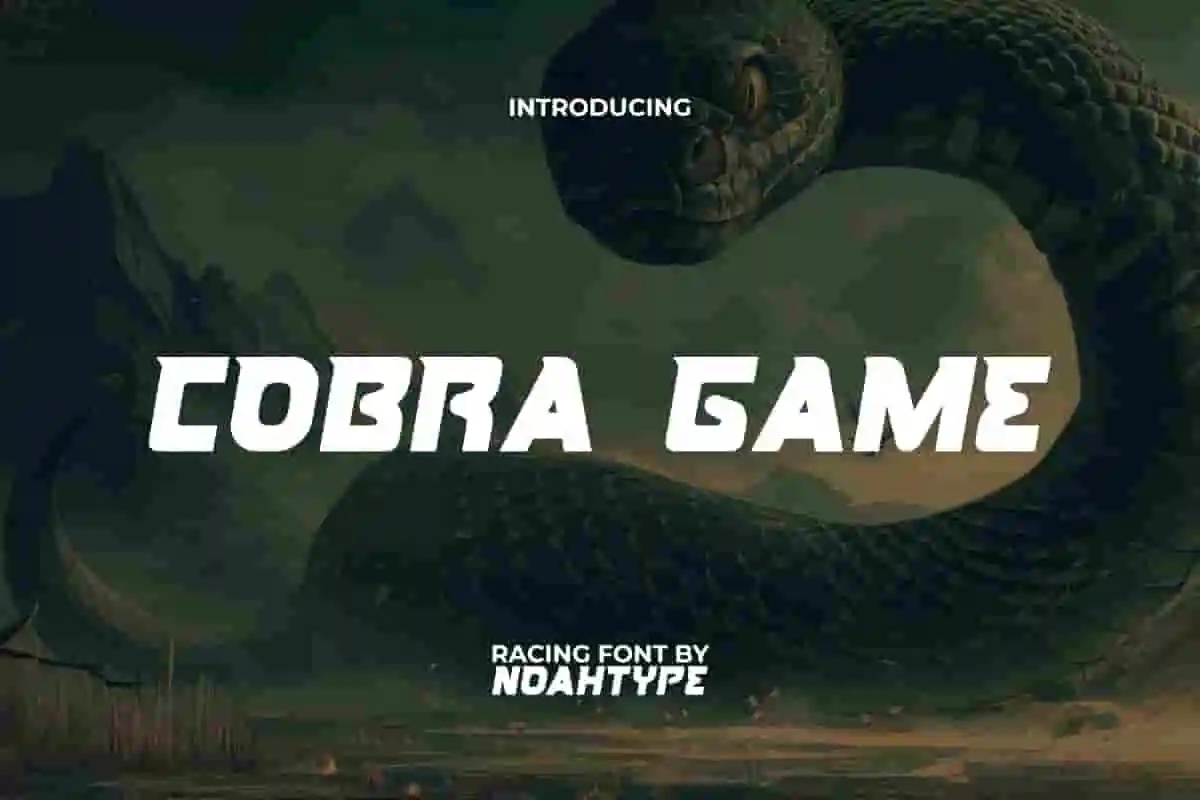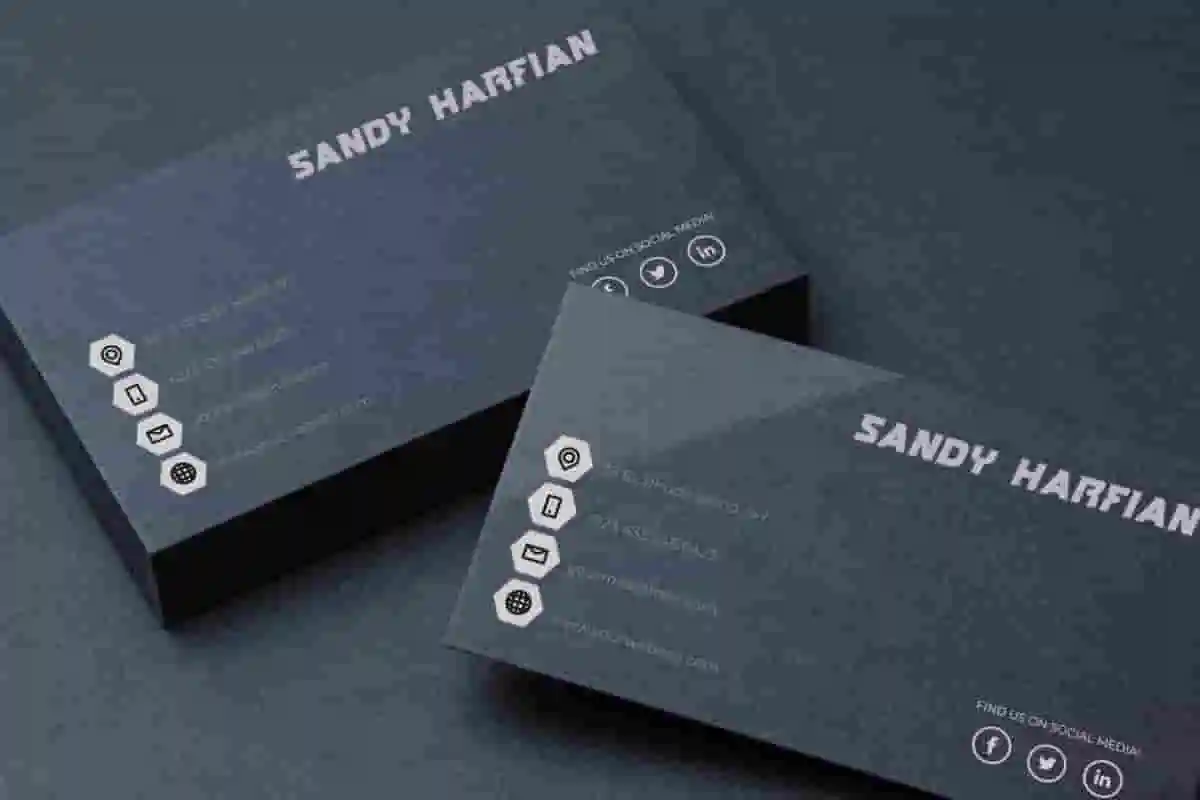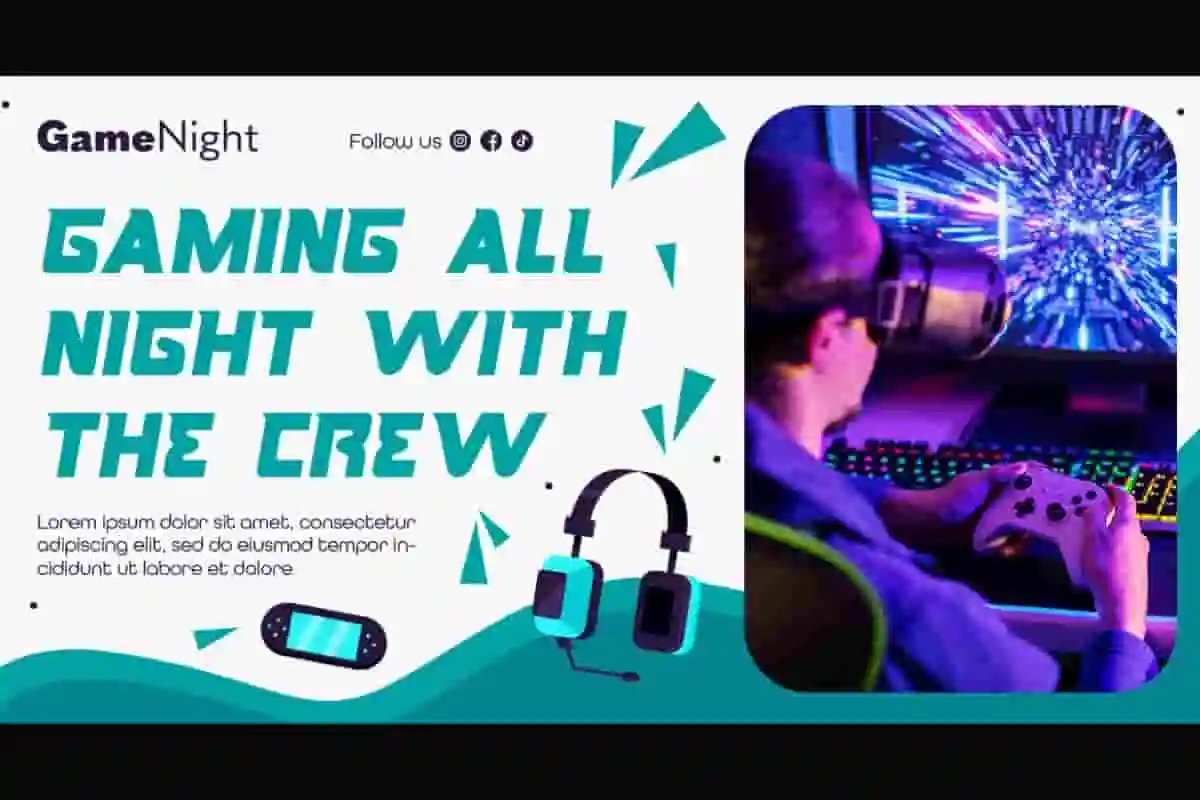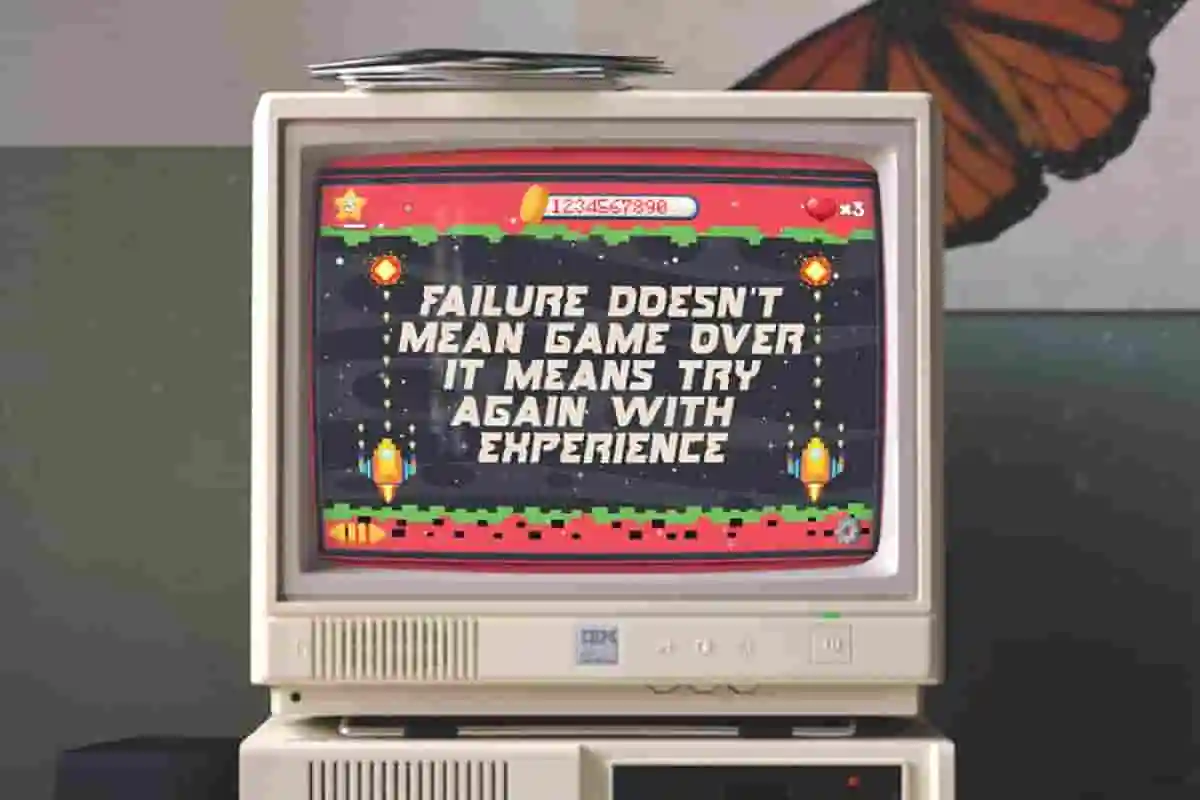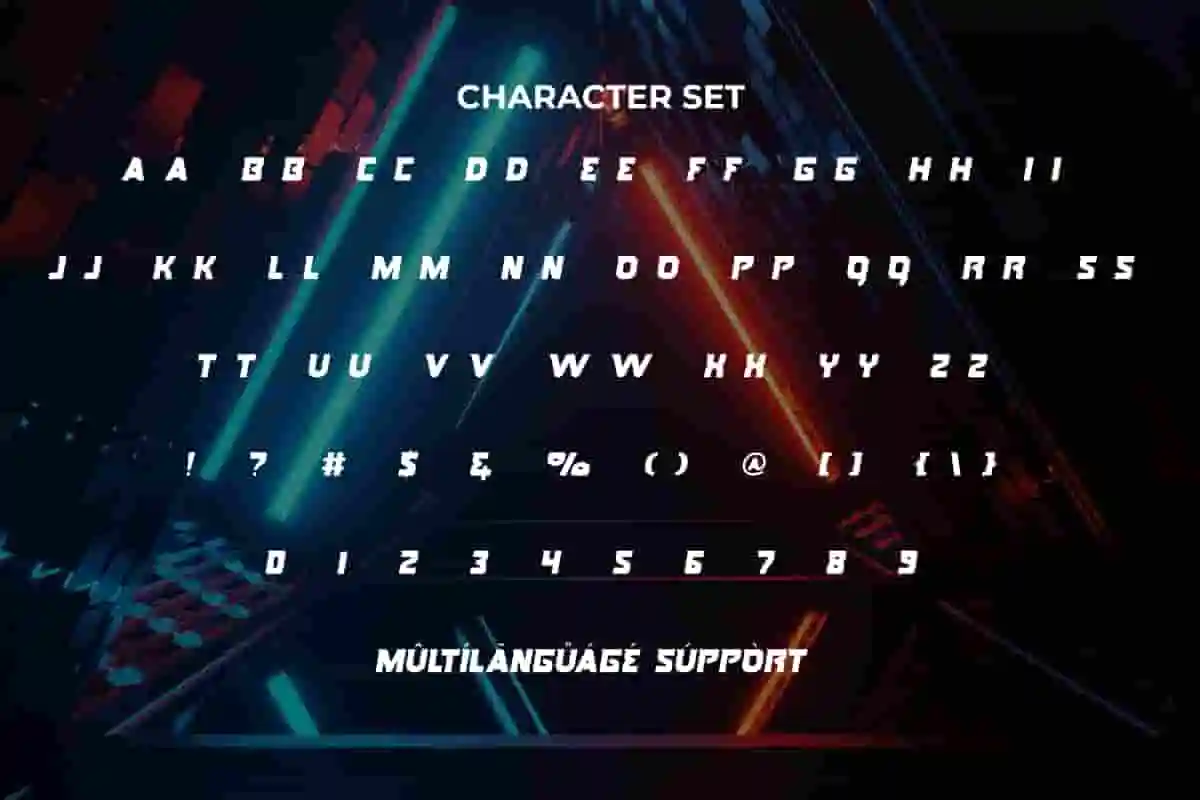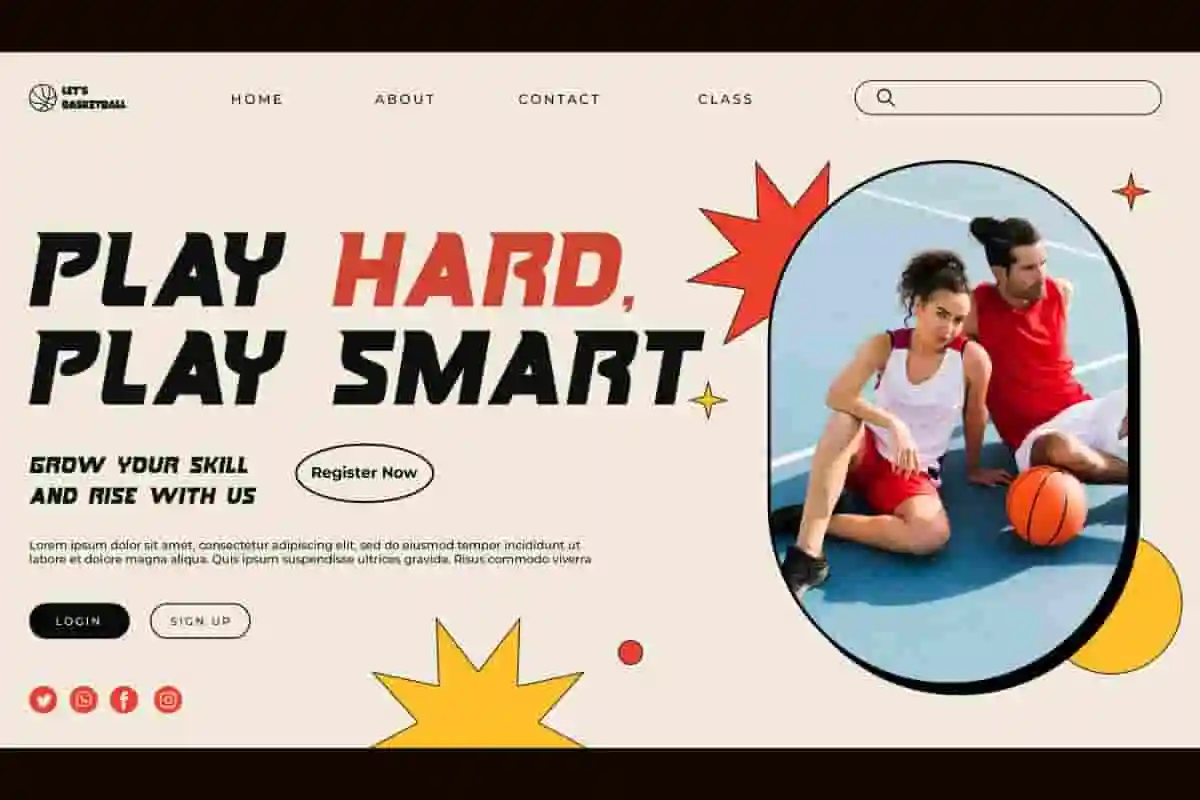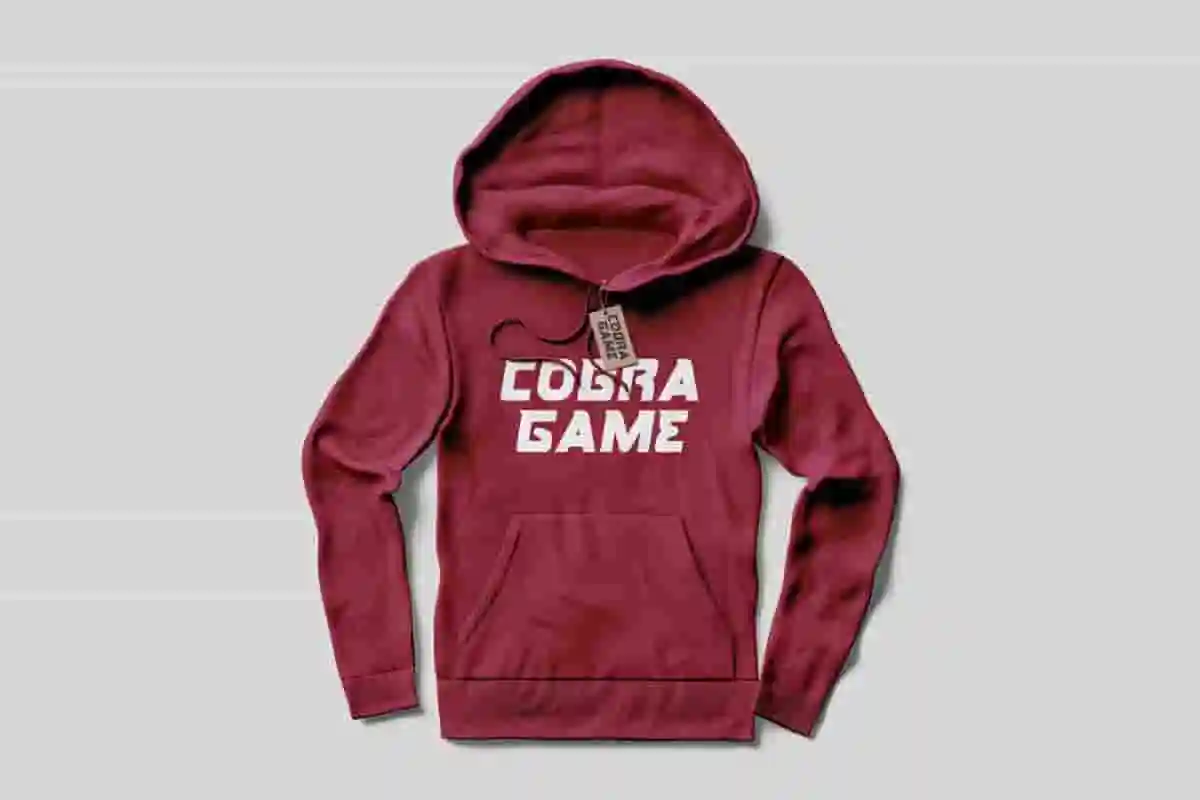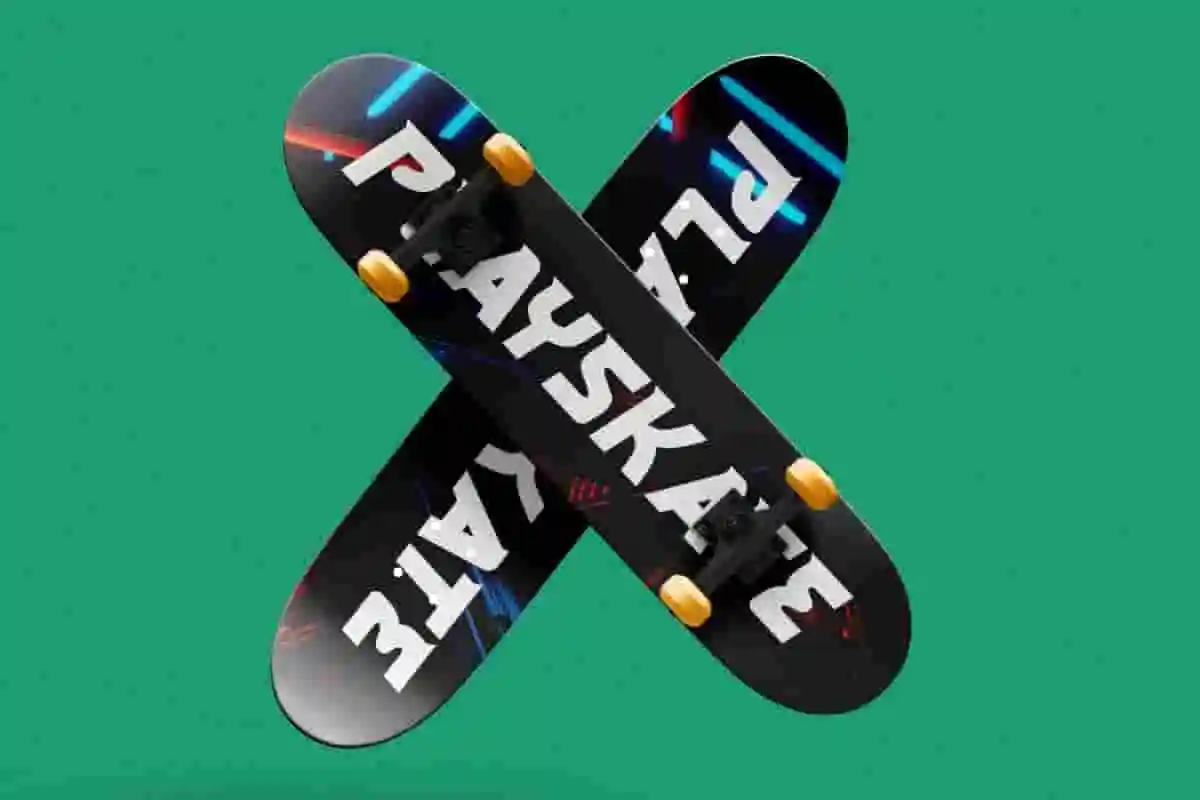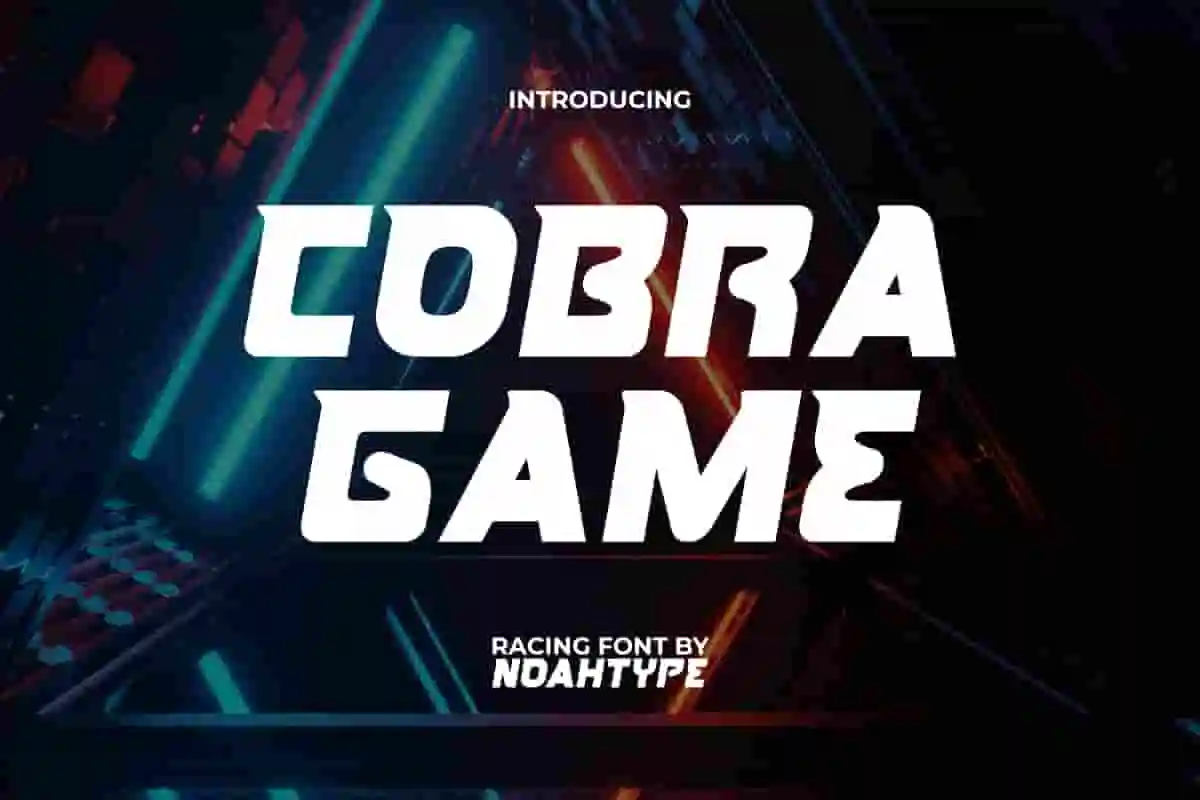
Cobra Game Font is a stylish racing display font with, created by NoahType. The uniqueness of this font lies in the shape of the letters which have curves like a snake’s body. It will be perfect for any designs, such as brand image, cover, custom design, invitation, label, menu, poster, printing, product packaging, quotes, signage, stationery, website, and many more!
Cobra Game Font includes full set of ALL CAPS for Uppercase and Lowercase Basic Characters, Numerals, Punctuation, and Symbol. This modern font will make your design amazing and also a perfect choice for many industries, such as accessories, advertising, art, café, event or festival, fashion, game, movie, music, printing, publishing, etc.